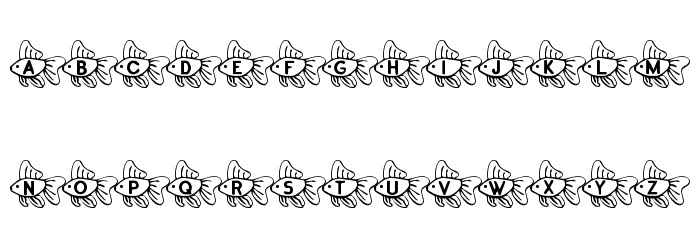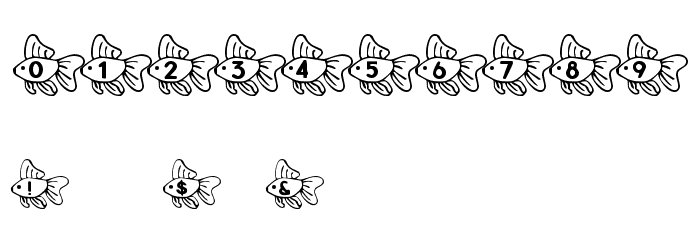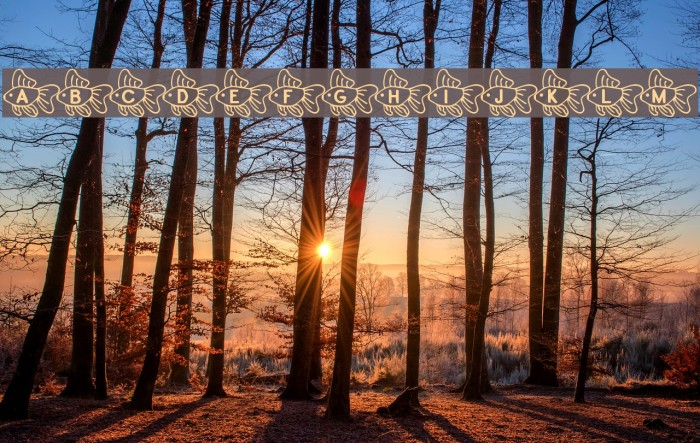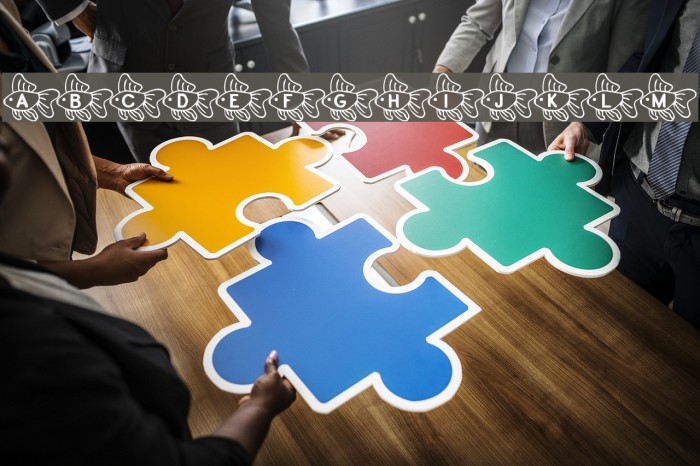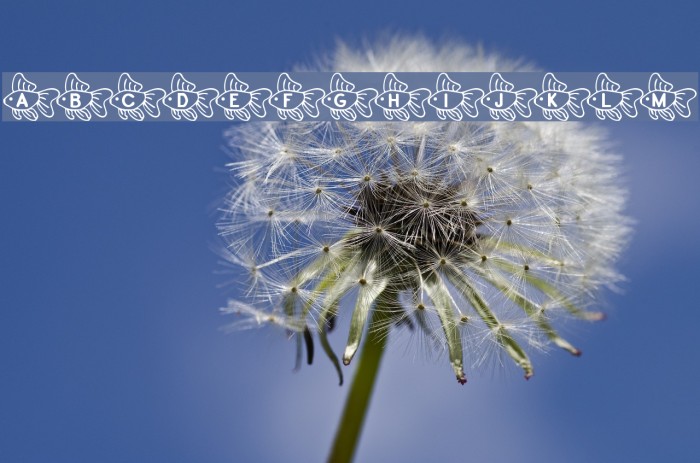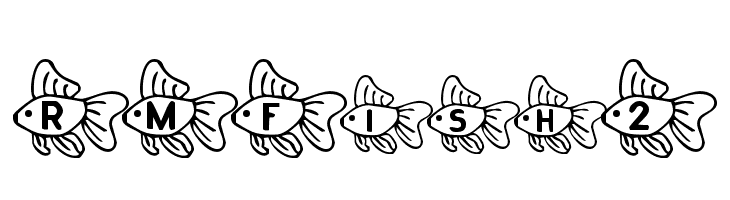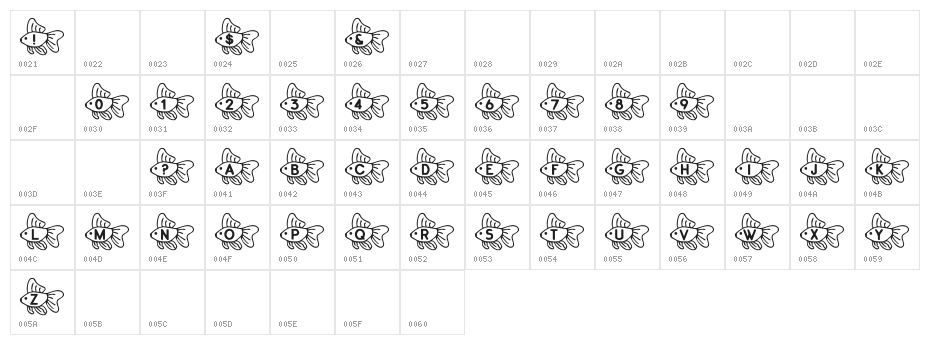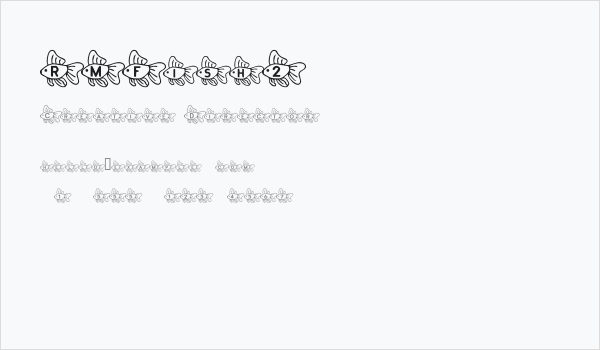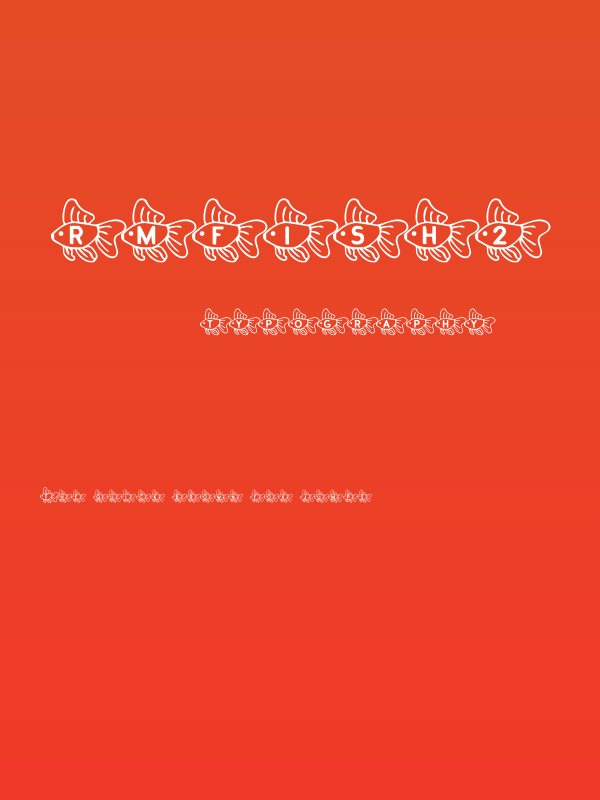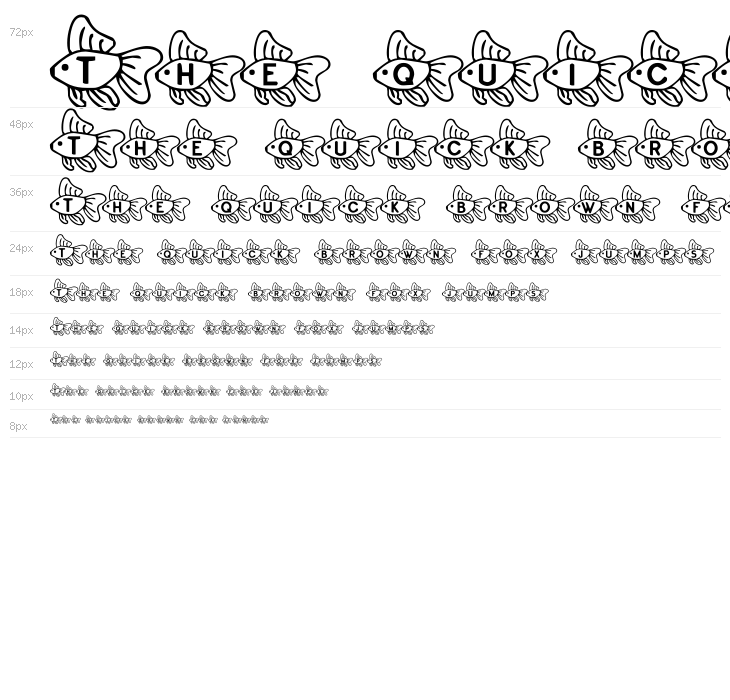
RMFish2 Font
This whimsical and playful font features each character encased within a cartoonish fish design, creating a unique and eye-catching appearance. The letters and numbers are bold and clear, making them easily readable despite the decorative fish elements. The font is perfect for projects that require a fun and lighthearted touch, such as children's books, educational materials, or playful branding. The consistent design across uppercase letters, numbers, and special characters ensures a cohesive look.
A playful font with characters encased in cartoon fish designs.
- Proposed Projects: Ideal for children's books, educational materials, playful branding, and themed party invitations.
- Overall Style: Playful
- Use Case: Headlines, Logos, Decorative text